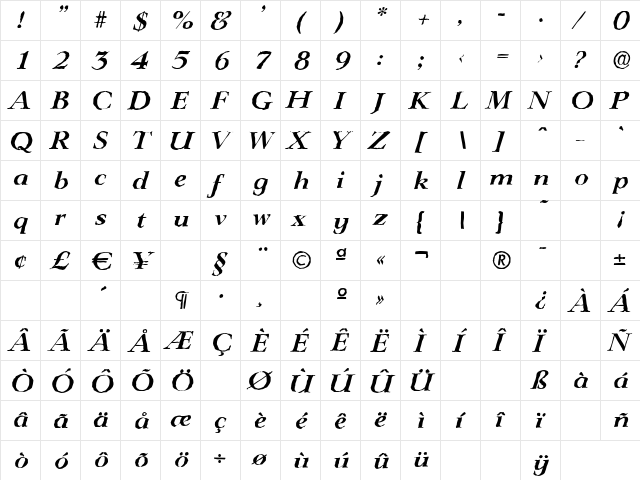
LingwoodAntique BoldItalic
Design Context for LingwoodAntique Typeface
LingwoodAntique taps into classic Western woodtype traditions — bold, characterful, and impossible to ignore. Its italic angle brings a sense of urgency and motion to the letterforms. The heavy weight commands attention and anchors typographic hierarchies.
A natural fit for craft spirits, ranch branding, rodeo events, and Americana-inspired design work.
Font Pairing: Combine LingwoodAntique with a simple slab or neutral sans — period-accurate companions reinforce the vintage feel without competing for attention.
Pro Tip: Use LingwoodAntique for short, impactful bursts of text — it shines in poster headlines and product names rather than extended copy.